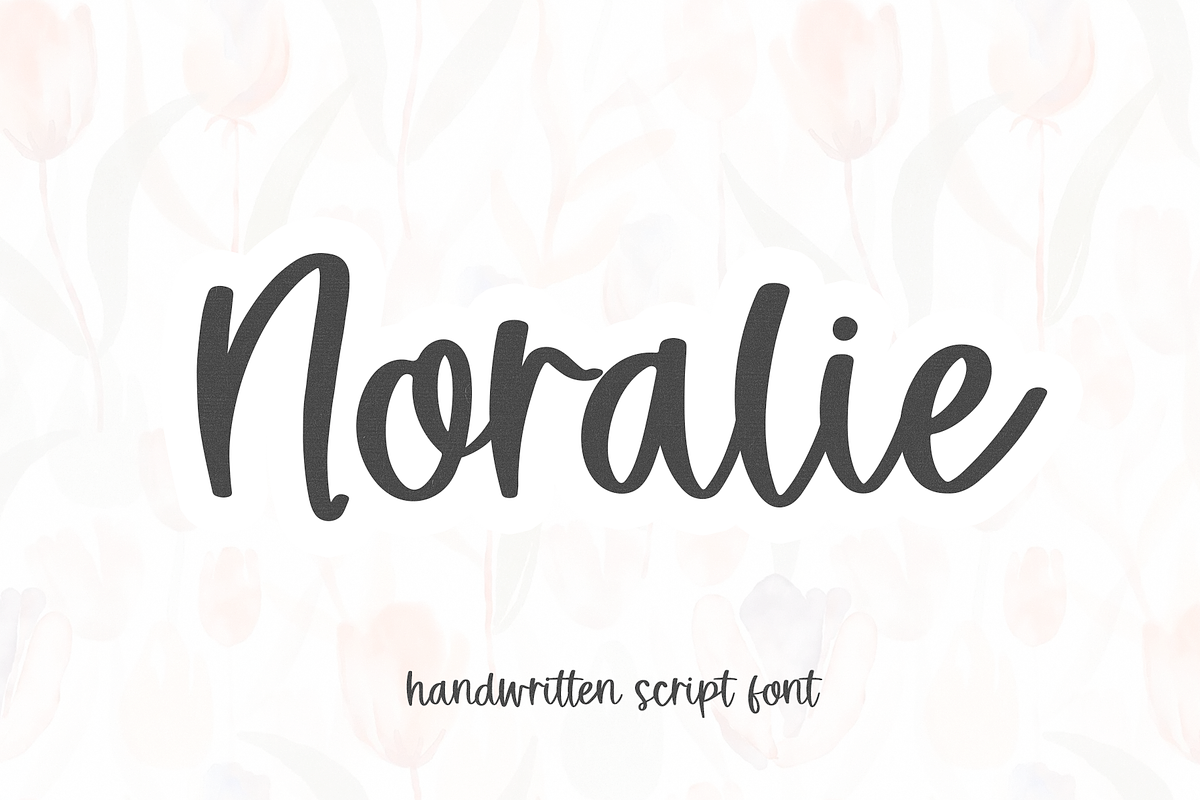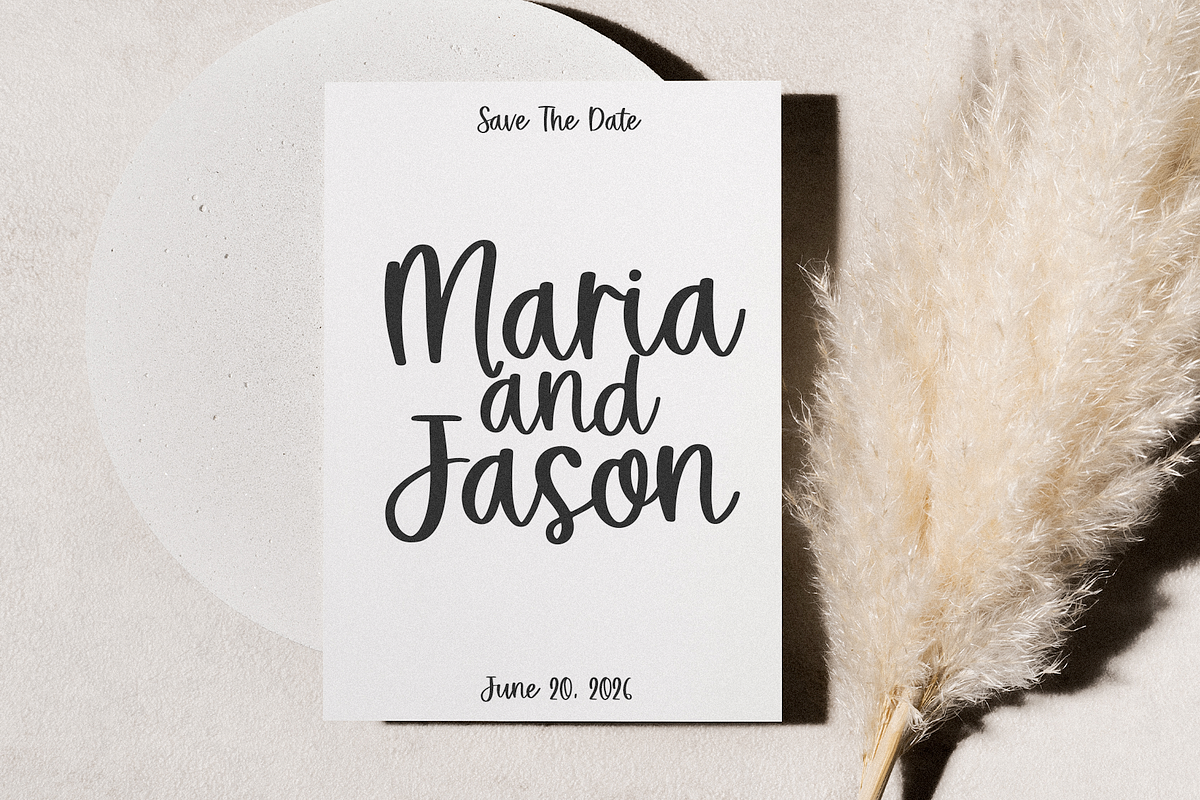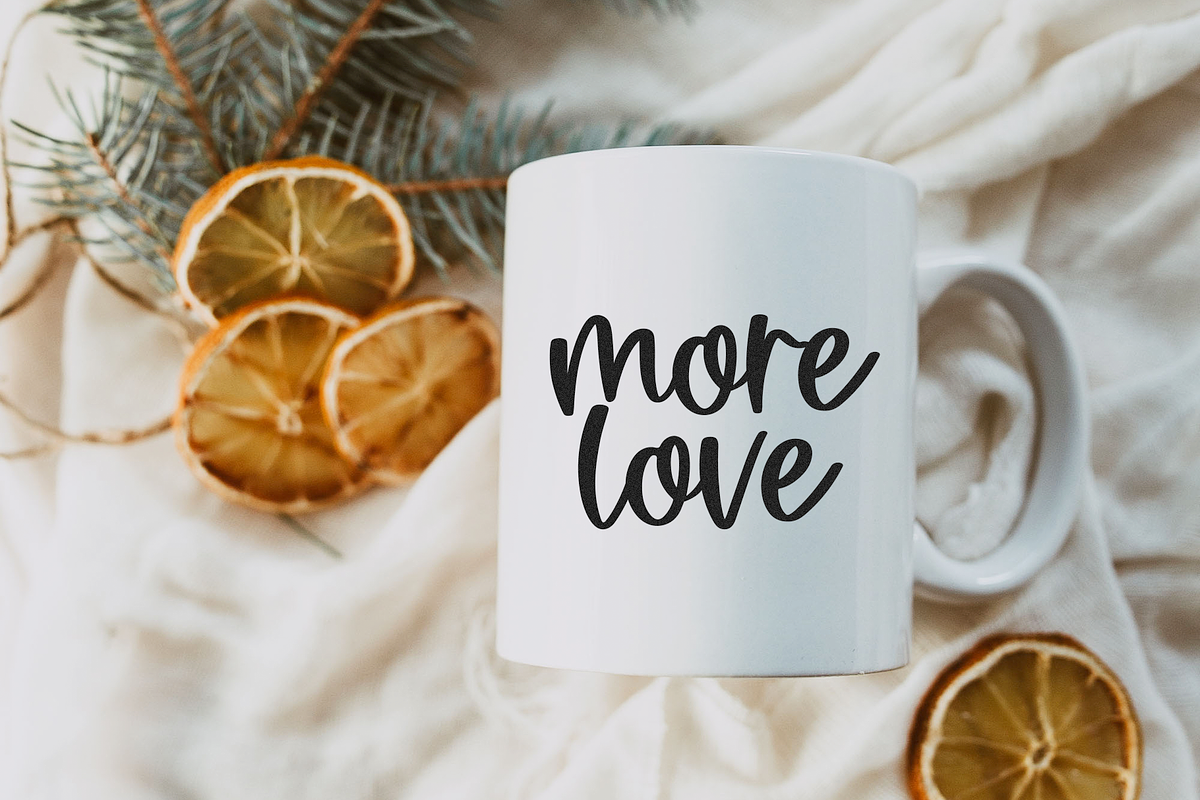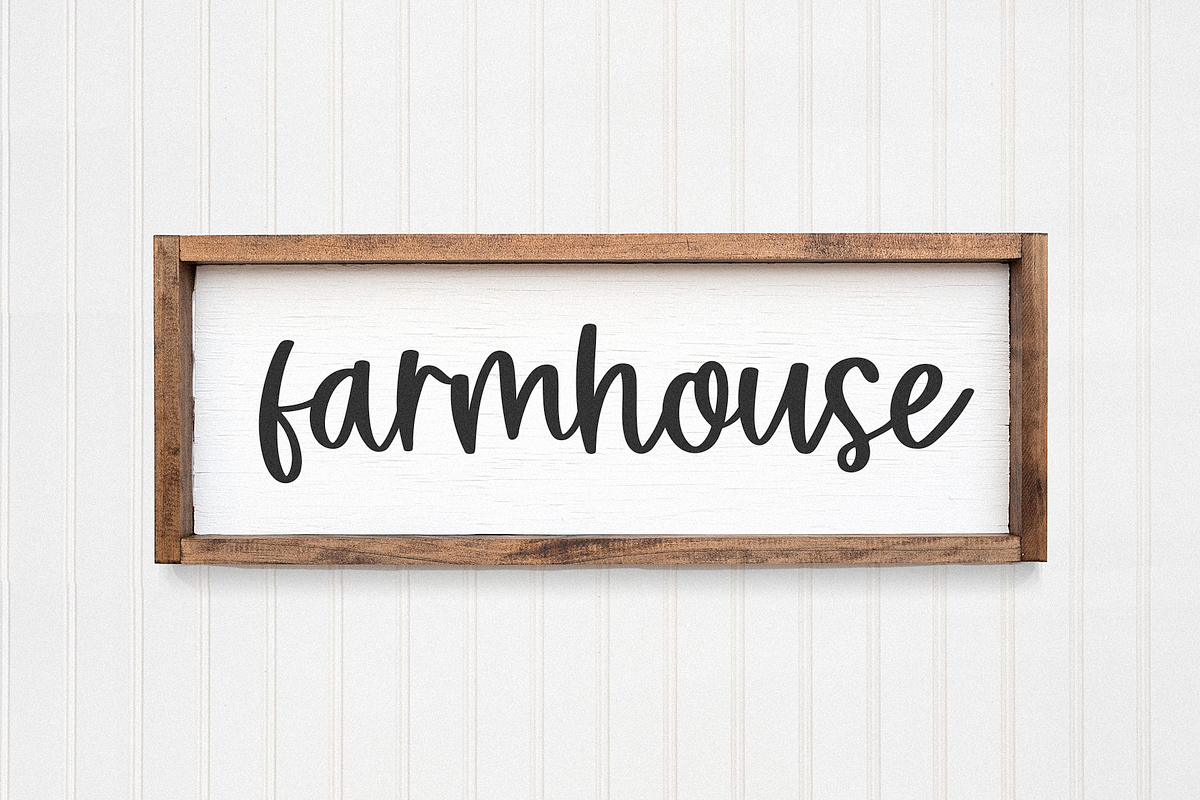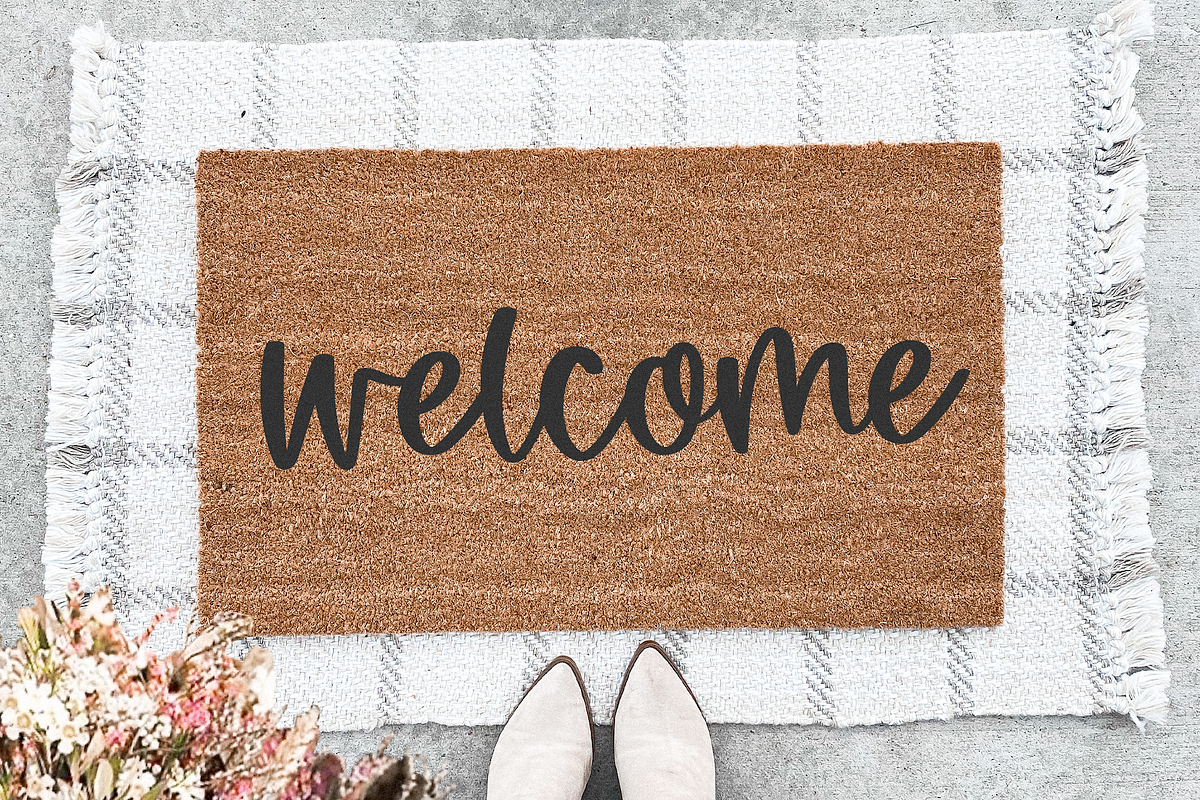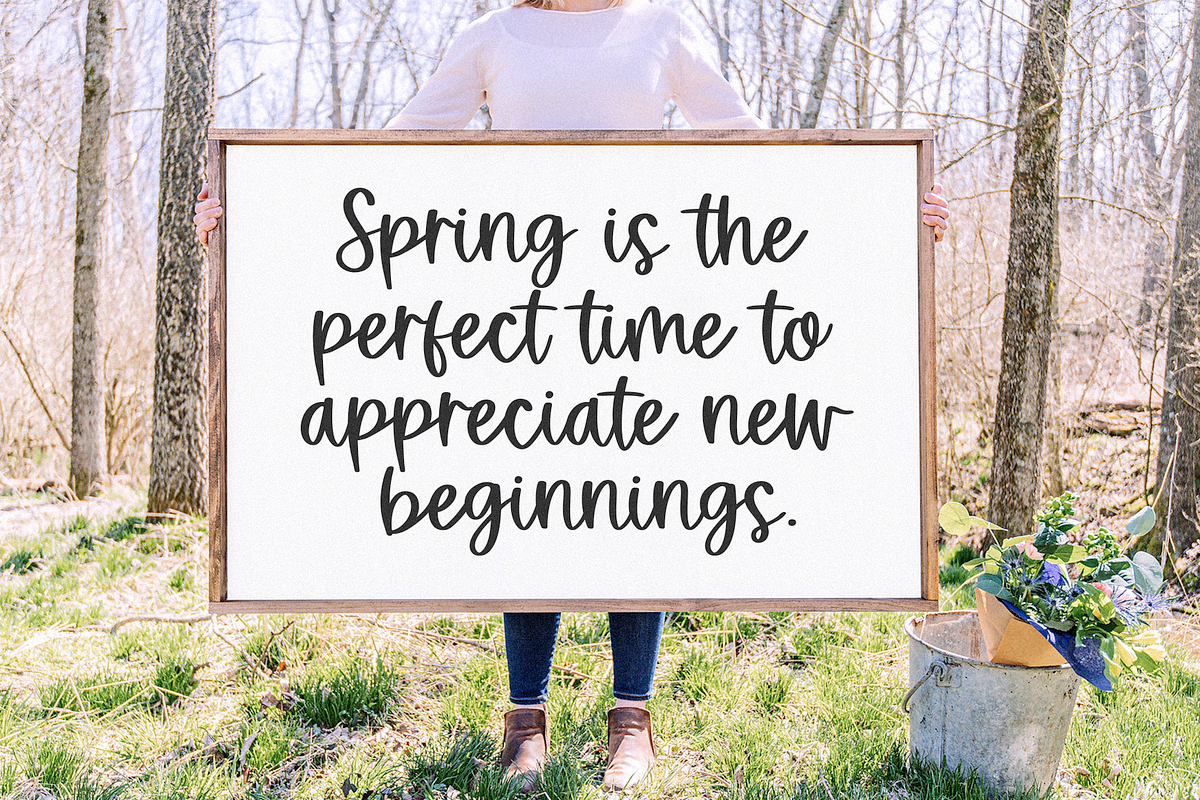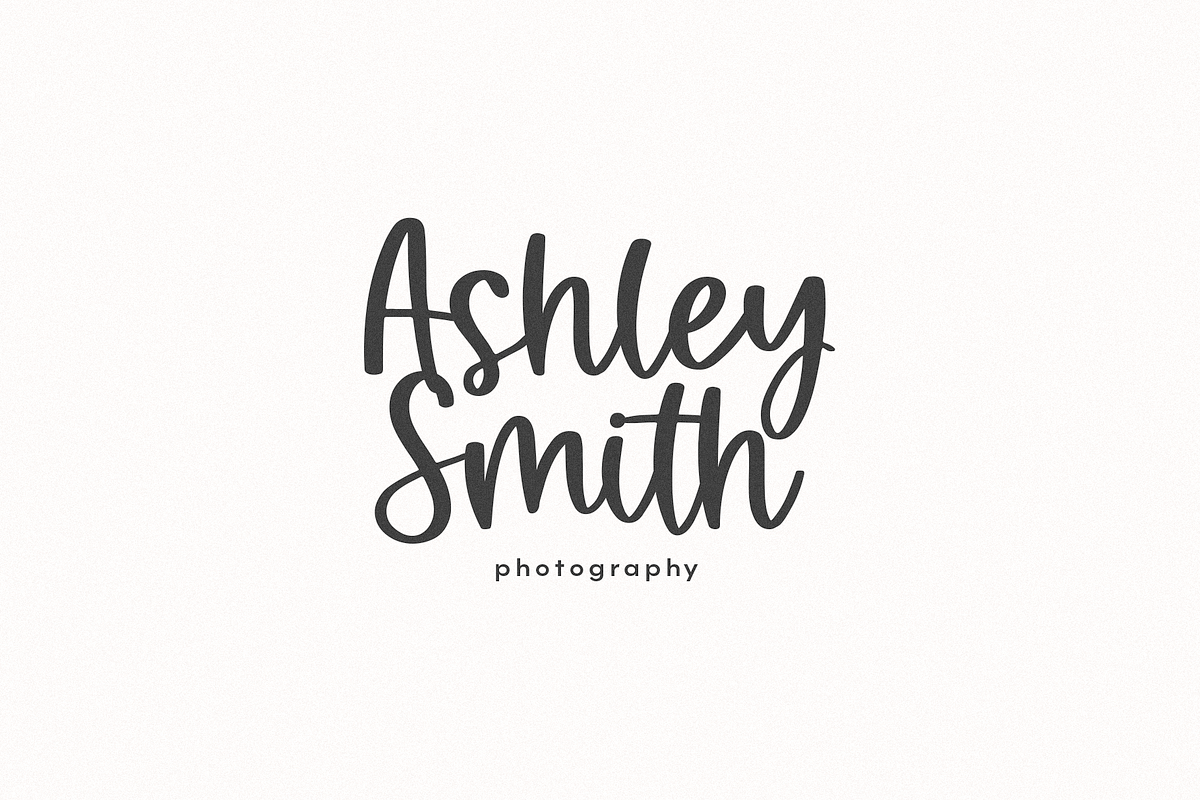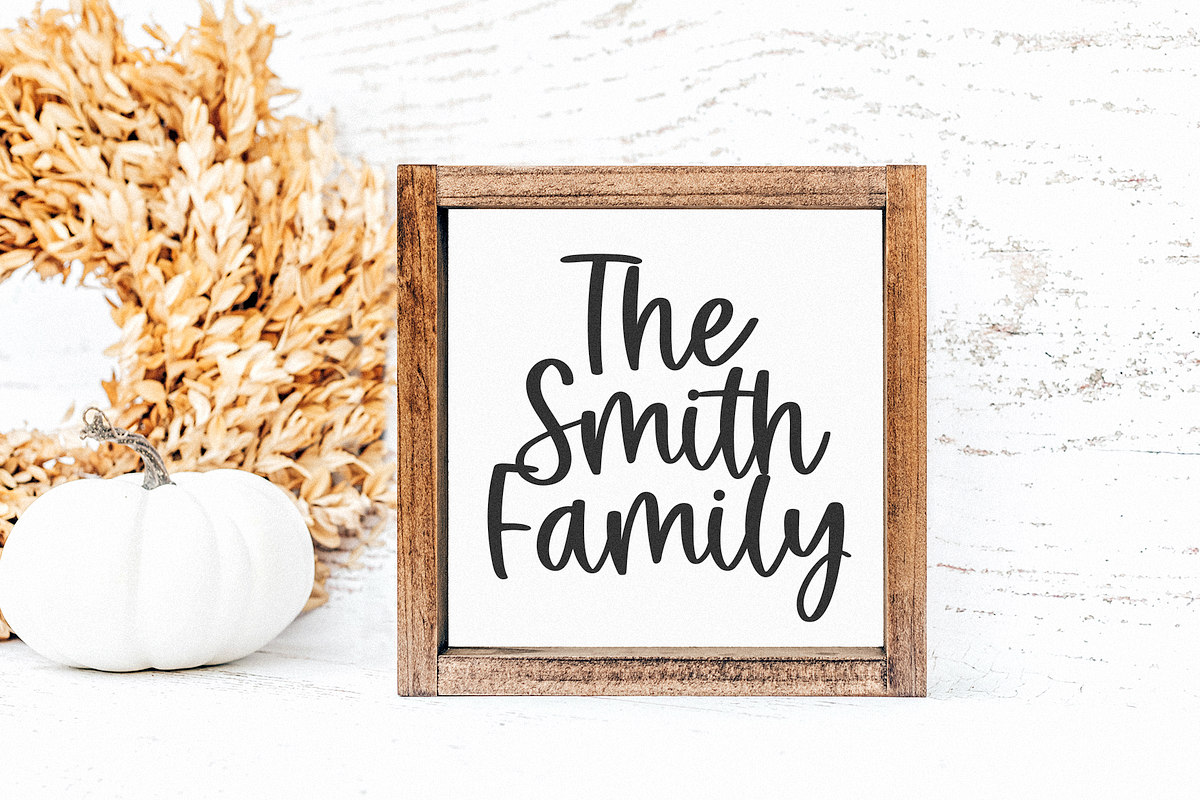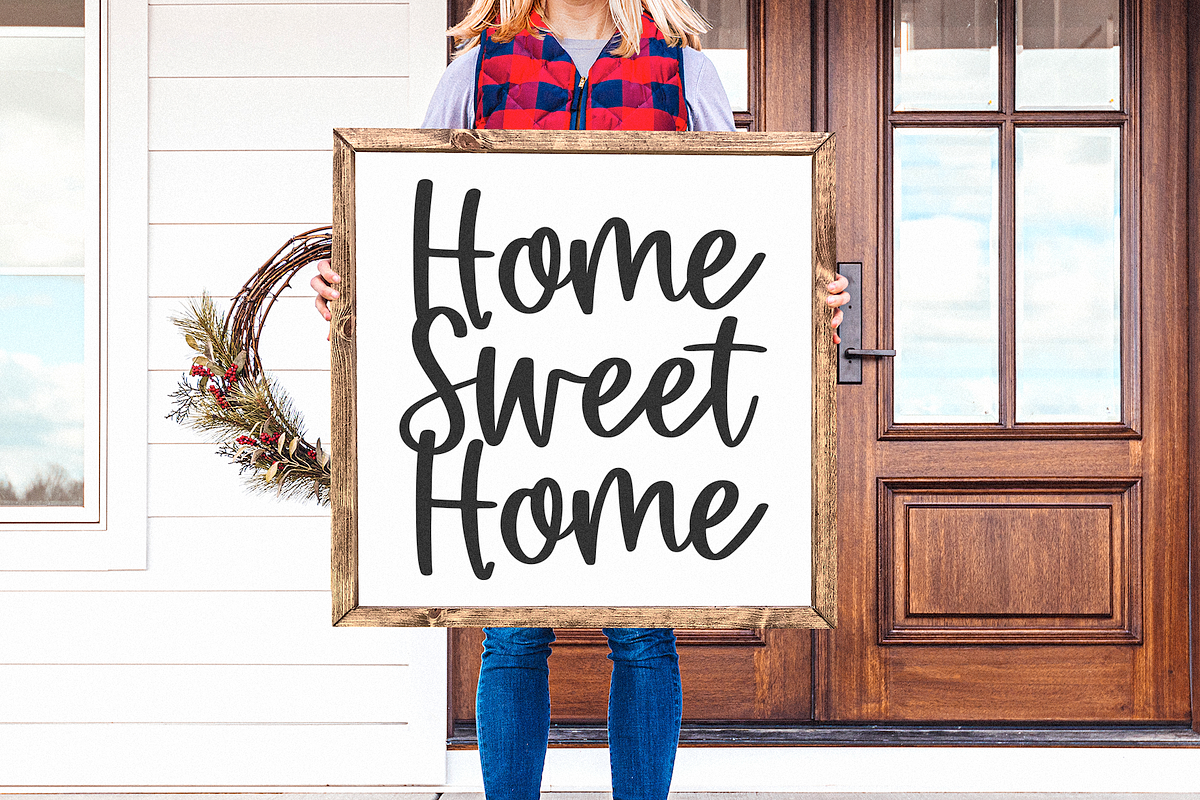
Noralie | Handwritten Script Font
Noralie is a handwritten script font.
This font is perfect for logos, quotes, crafts, stickers, procreate, farmhouse designs, cricut projects and more!